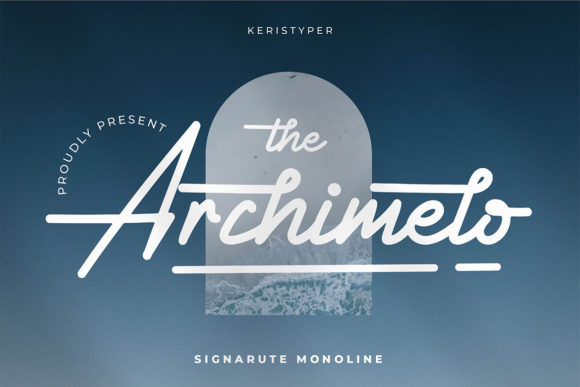
Introducing Archimelo Script: The Epitome of Elegance and Authenticity for Your Creative Endeavors
In a world saturated with digital monotony, your words carry the power to ignite emotions, convey messages, and leave a lasting impact. Archimelo Script, a stunning handwritten signature font, emerges as your perfect companion in this quest for creative expression.
Archimelo: A Font That Speaks Volumes
Step into the realm of visual artistry with Archimelo, a font crafted with meticulous attention to detail. Its graceful strokes, inspired by the beauty of natural handwriting, impart an enchanting personal touch to your designs. Unleash your creativity and let your words dance across the page with an allure that captivates and enchants.
Beyond its aesthetic charm, Archimelo is a versatile performer, ready to adapt effortlessly to a myriad of creative tasks. Whether you're designing a captivating logo that leaves an indelible mark, crafting eye-catching social media posts that demand attention, or creating compelling movie or book titles that pique curiosity, Archimelo rises to the occasion with unwavering finesse.
Dive into the boundless possibilities of Archimelo's applications. Use it to craft short or lengthy texts that exude an air of authenticity and charm. Pair it with sans or serif fonts for a harmonious blend of styles, adding depth and intrigue to your designs. Archimelo is your versatile ally in the pursuit of visual excellence.
Unlock the Potential of Archimelo's Enchanting Features:
• Natural & Stylish Flow: Archimelo's strokes mimic the fluidity and grace of natural handwriting, infusing your designs with an organic and captivating touch.
• Unleash Creative Versatility: From logos and social media posts to movie titles and book covers, Archimelo effortlessly adapts to a wide spectrum of creative endeavors.
• Effortlessly Blend Styles: Seamlessly pair Archimelo with sans or serif fonts, creating visually stunning compositions that exude sophistication and harmony.
• Enhance Your Visual Storytelling: Archimelo's captivating presence elevates the impact of your visual narratives, allowing your messages to resonate with audiences on a deeper level.
Embrace Archimelo Script today and embark on a creative journey where elegance, authenticity, and versatility converge. Transform your designs into masterpieces that captivate, inspire, and leave a lasting impression.